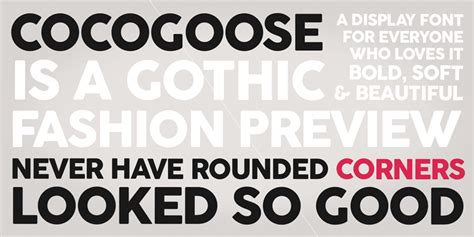
Coco Goose Font. Condensed, compressed and narrow, each in multiple weights with italics, small capitals, alternates, old style numerals, full cyrillic and greek character sets, and. Web cocogoose narrows includes 3 different widths:
Web download the cocogoose font by zetafonts. The cocogoose font has been downloaded 59,524 times. Condensed, compressed and narrow, each in multiple weights with italics, small capitals, alternates, old style numerals, full cyrillic and greek character sets, and. New fonts | top fonts | submit a font | font designers. Web cocogoose is part of the coco gothic family, a collection of twelve typefaces each inspired by the fashion mood of every decade of last century, named in homage to fashion beloved icon coco chanel. Web cocogoose narrows includes 3 different widths:
Web cocogoose is part of the coco gothic family, a collection of twelve typefaces each inspired by the fashion mood of every decade of last century, named in homage to fashion beloved icon coco chanel. The cocogoose font has been downloaded 59,524 times. Web download the cocogoose font by zetafonts. Web cocogoose narrows includes 3 different widths: Web cocogoose is part of the coco gothic family, a collection of twelve typefaces each inspired by the fashion mood of every decade of last century, named in homage to fashion beloved icon coco chanel. Condensed, compressed and narrow, each in multiple weights with italics, small capitals, alternates, old style numerals, full cyrillic and greek character sets, and. New fonts | top fonts | submit a font | font designers.